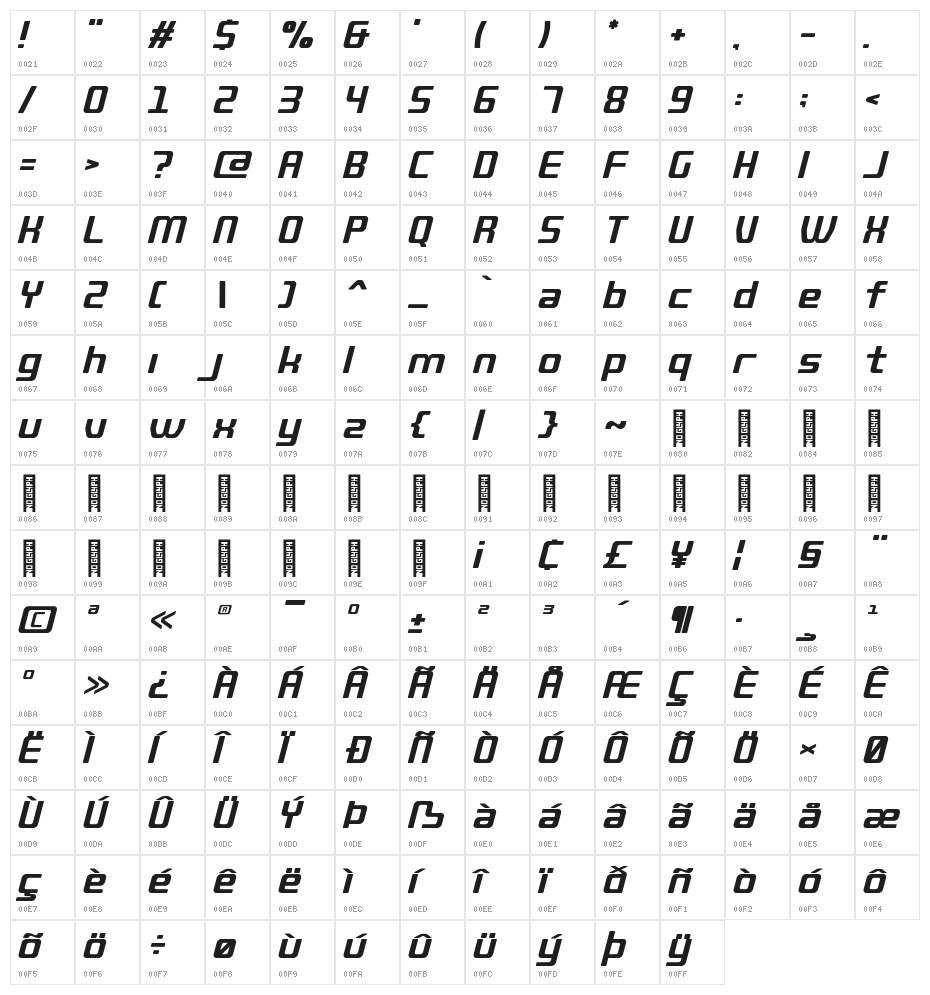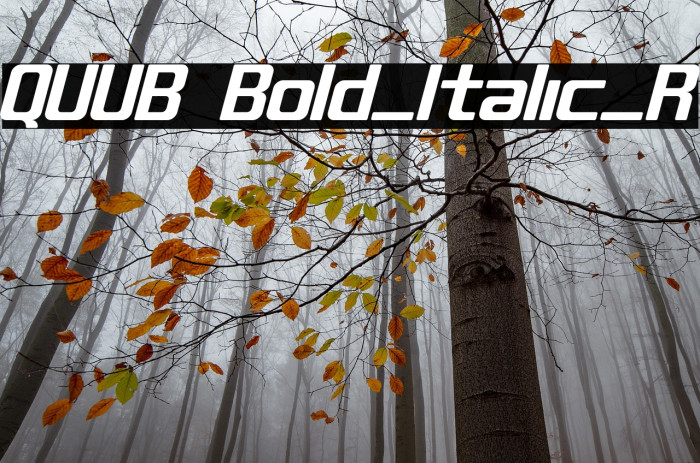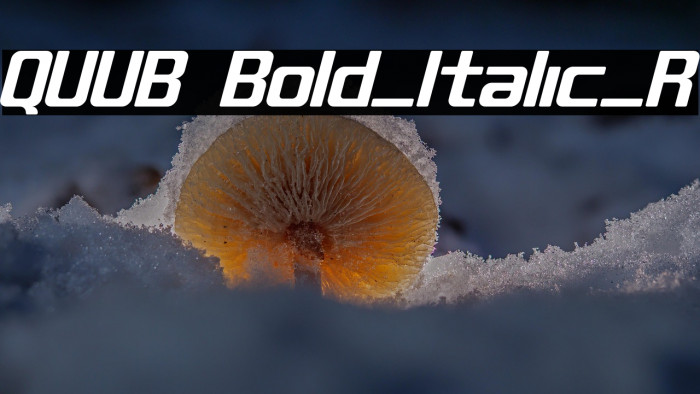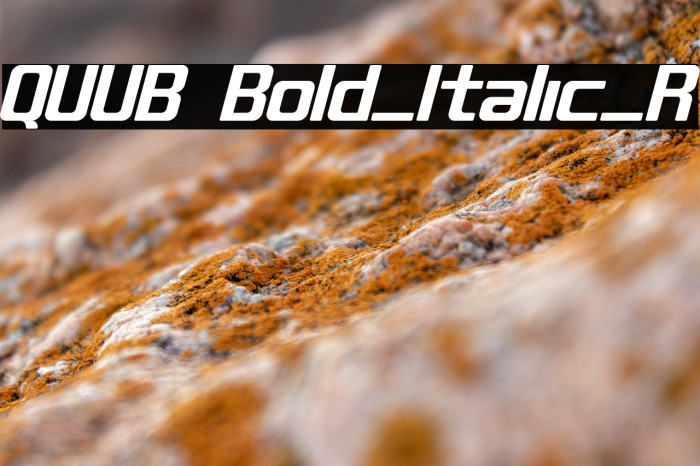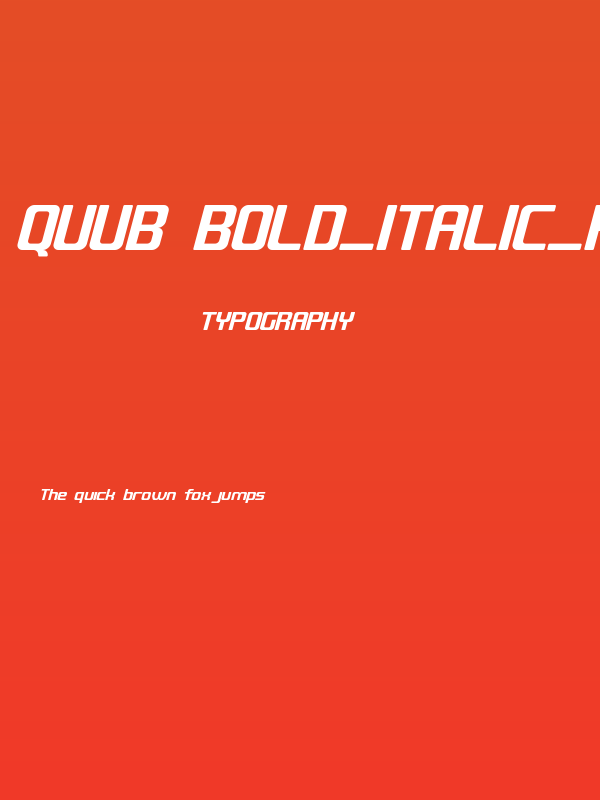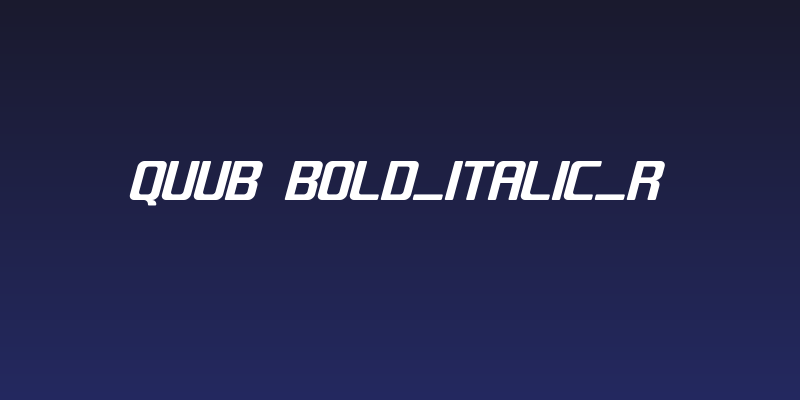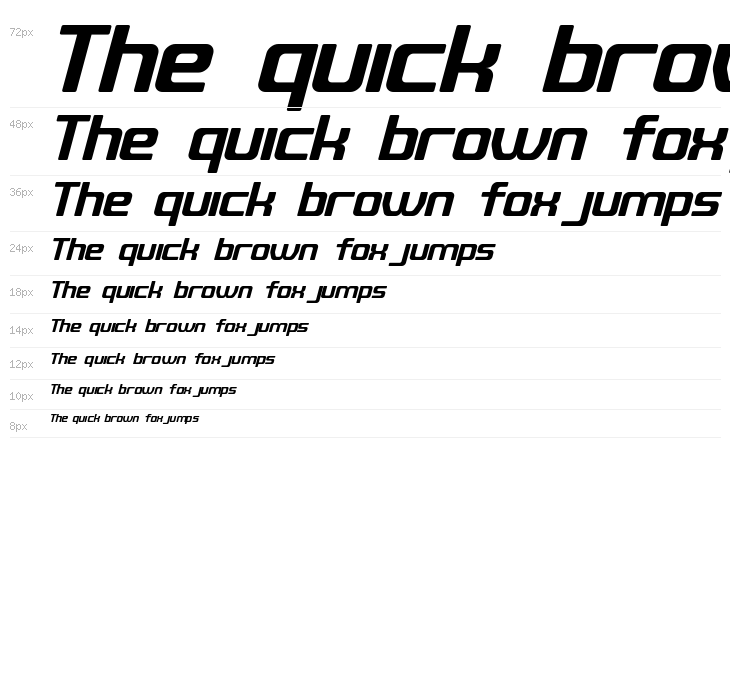
QUUB Bold_Italic_R Font
QUUB Bold_Italic_R Description
This font exhibits a modern and dynamic style with a bold and italicized appearance. The characters are slightly slanted, giving a sense of motion and energy. The strokes are thick and consistent, contributing to a robust and impactful look. The uppercase and lowercase letters maintain a uniform height, enhancing readability. The numerals are clear and distinct, matching the overall boldness of the alphabet. Special characters are well-defined, ensuring versatility in various design contexts. The font's geometric structure and clean lines make it suitable for contemporary designs.
| Proposed Projects | Ideal for sports branding, dynamic posters, modern advertising, and tech-related projects. |